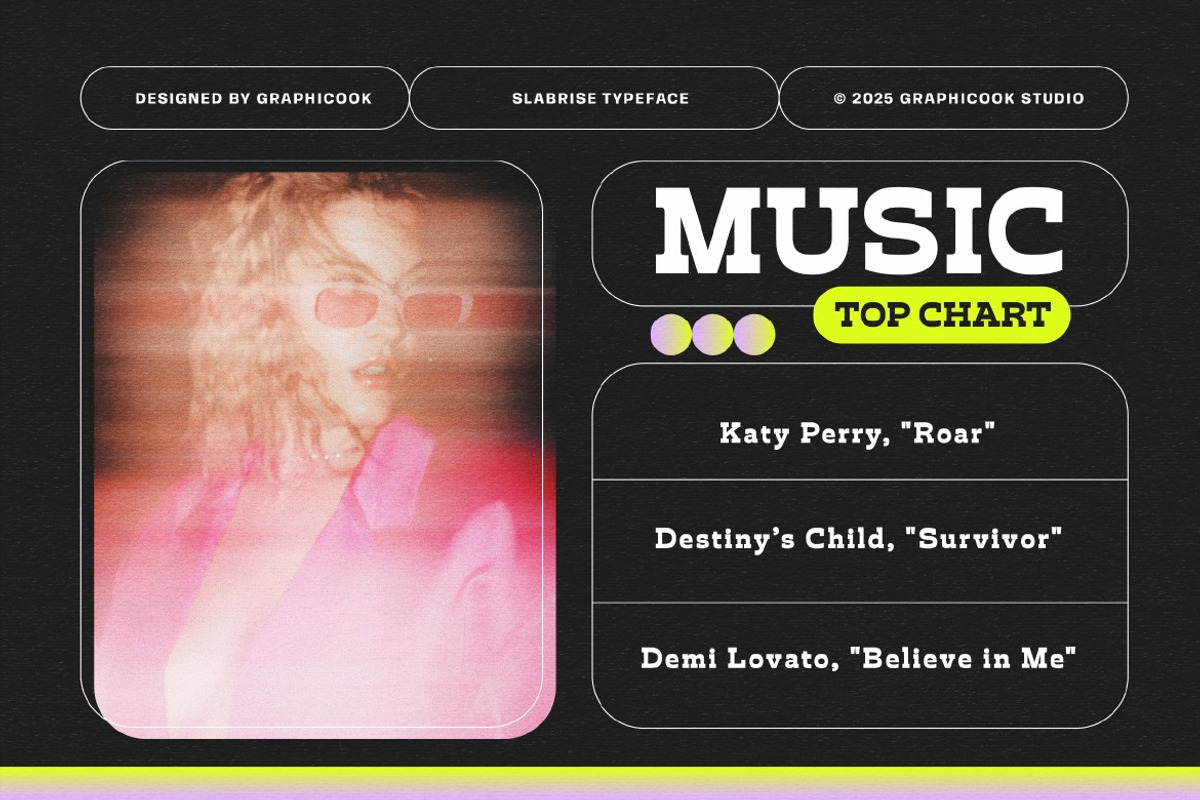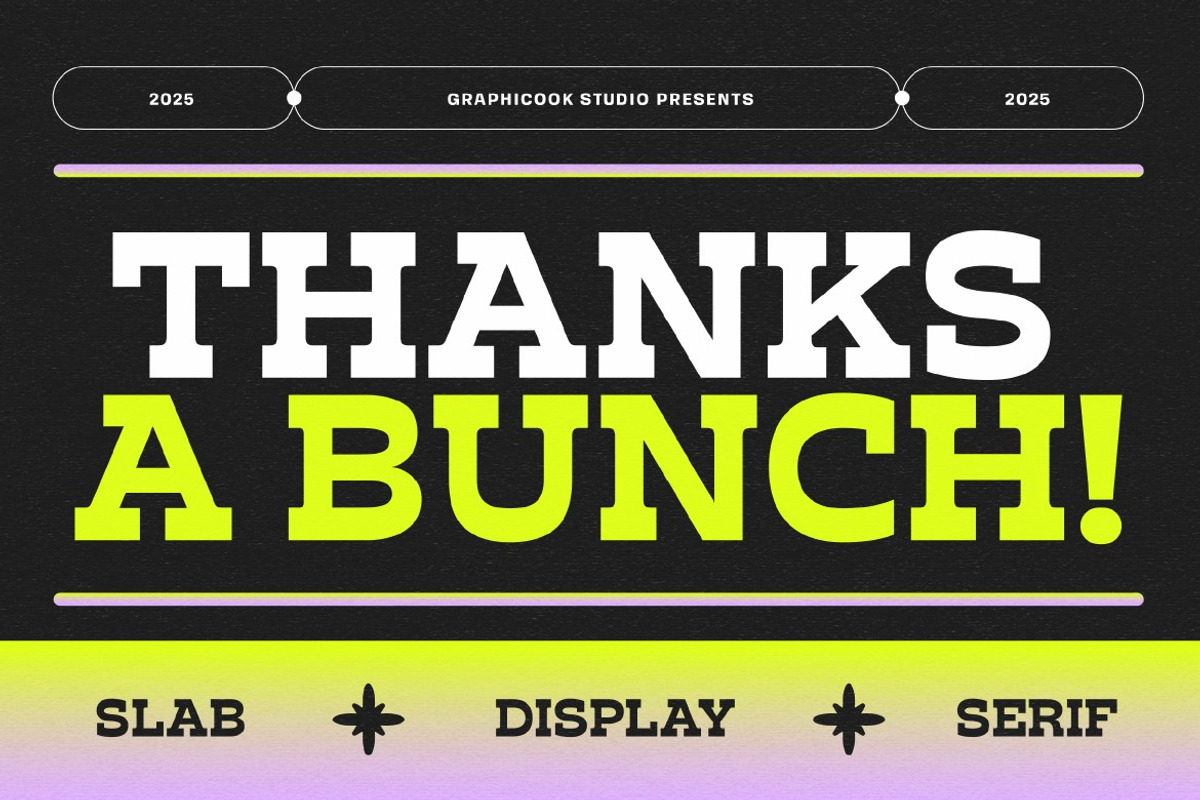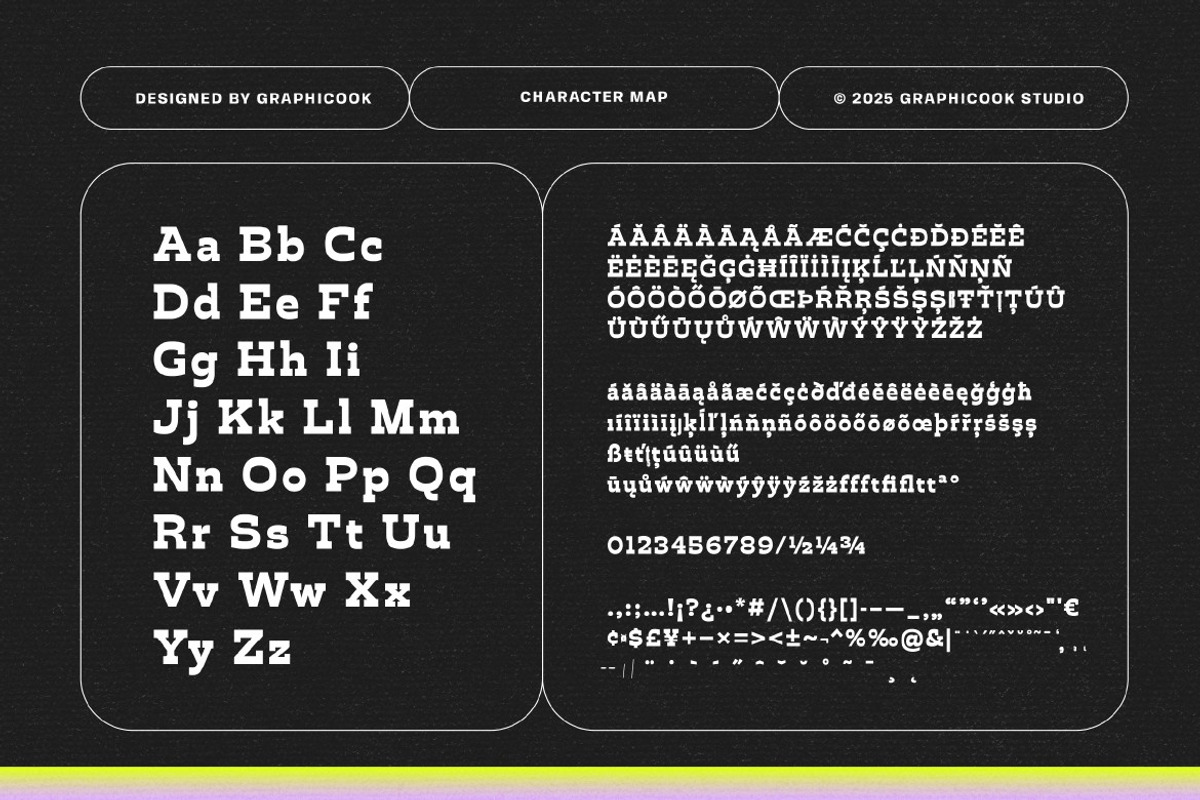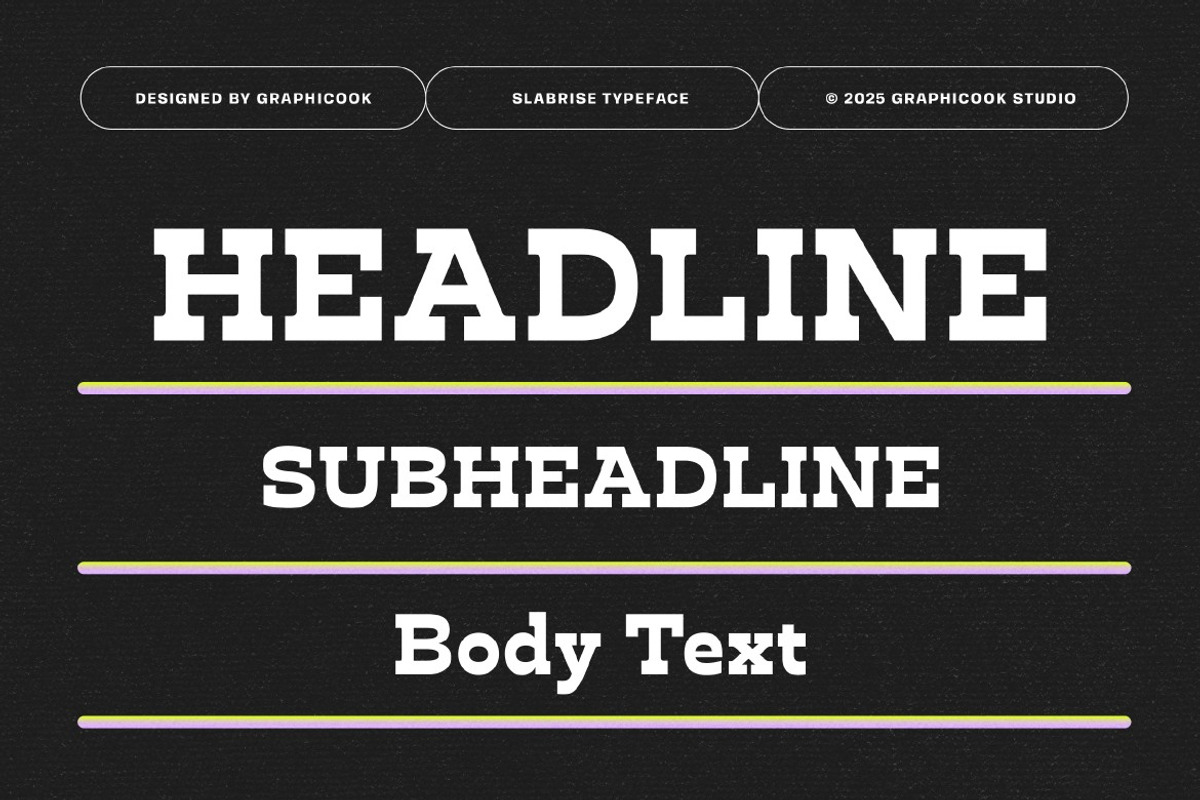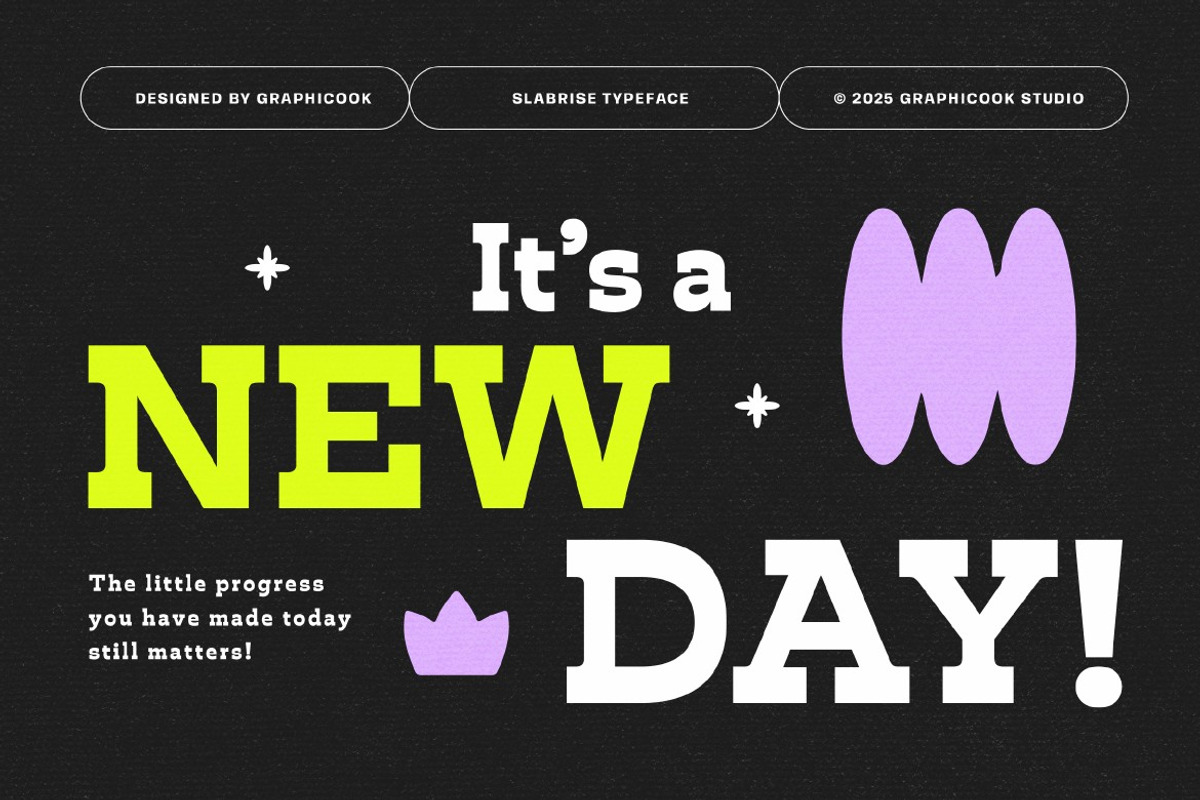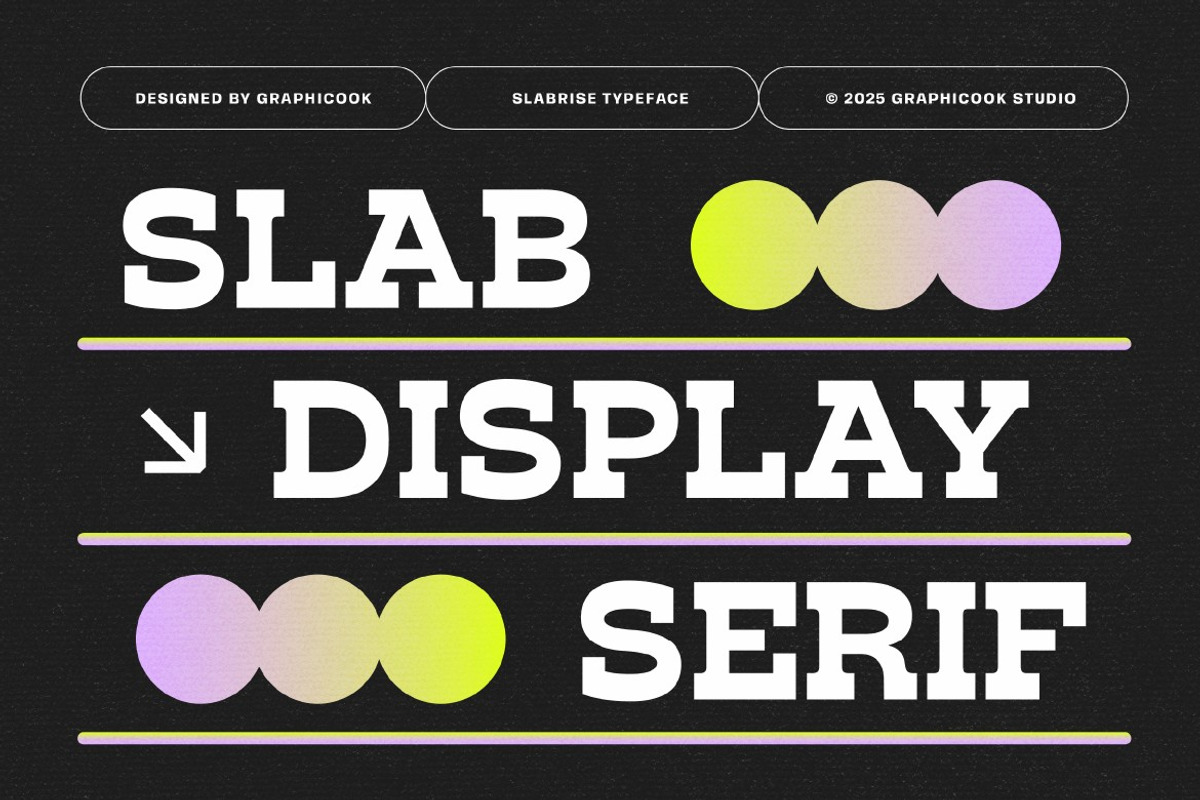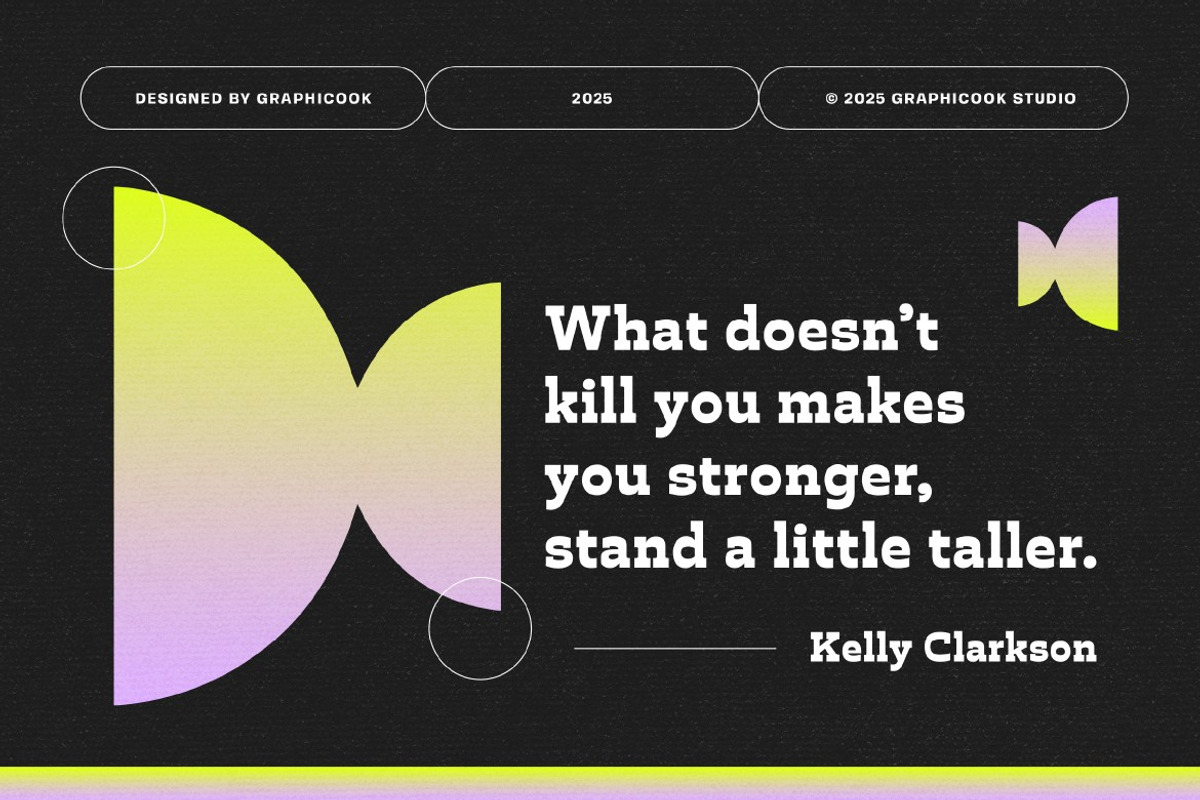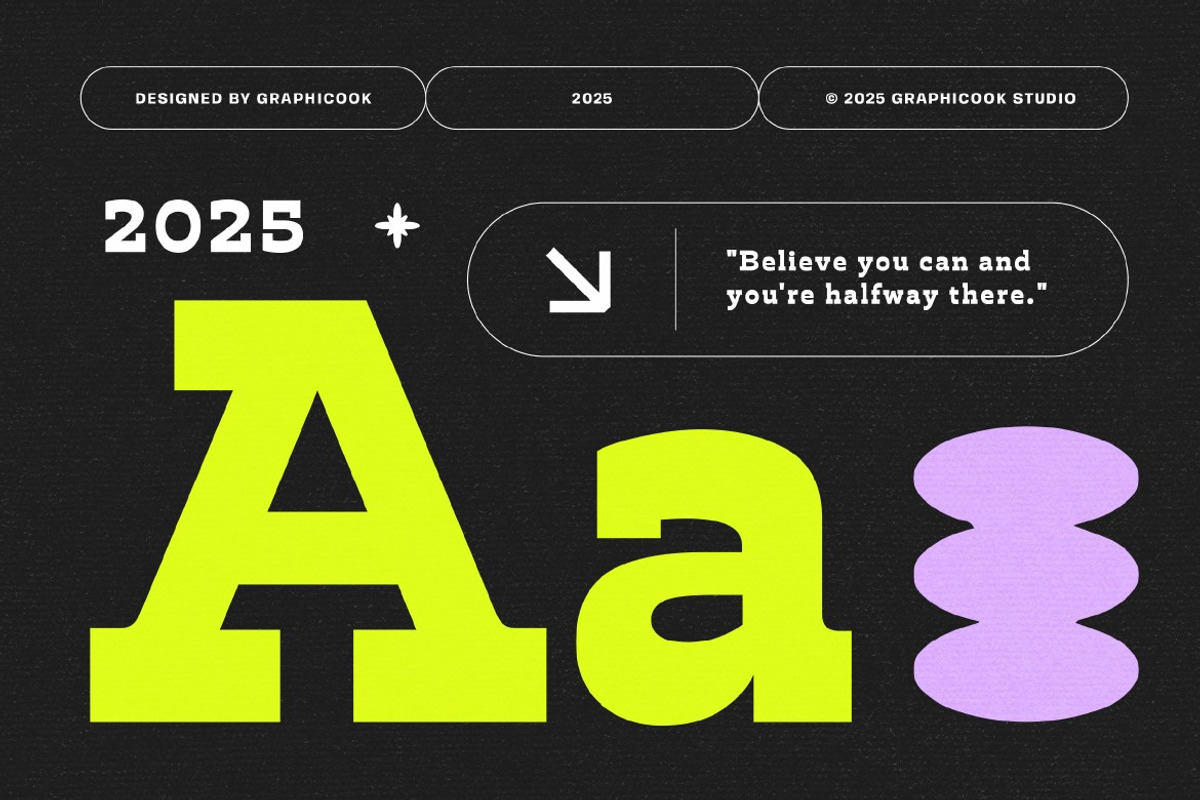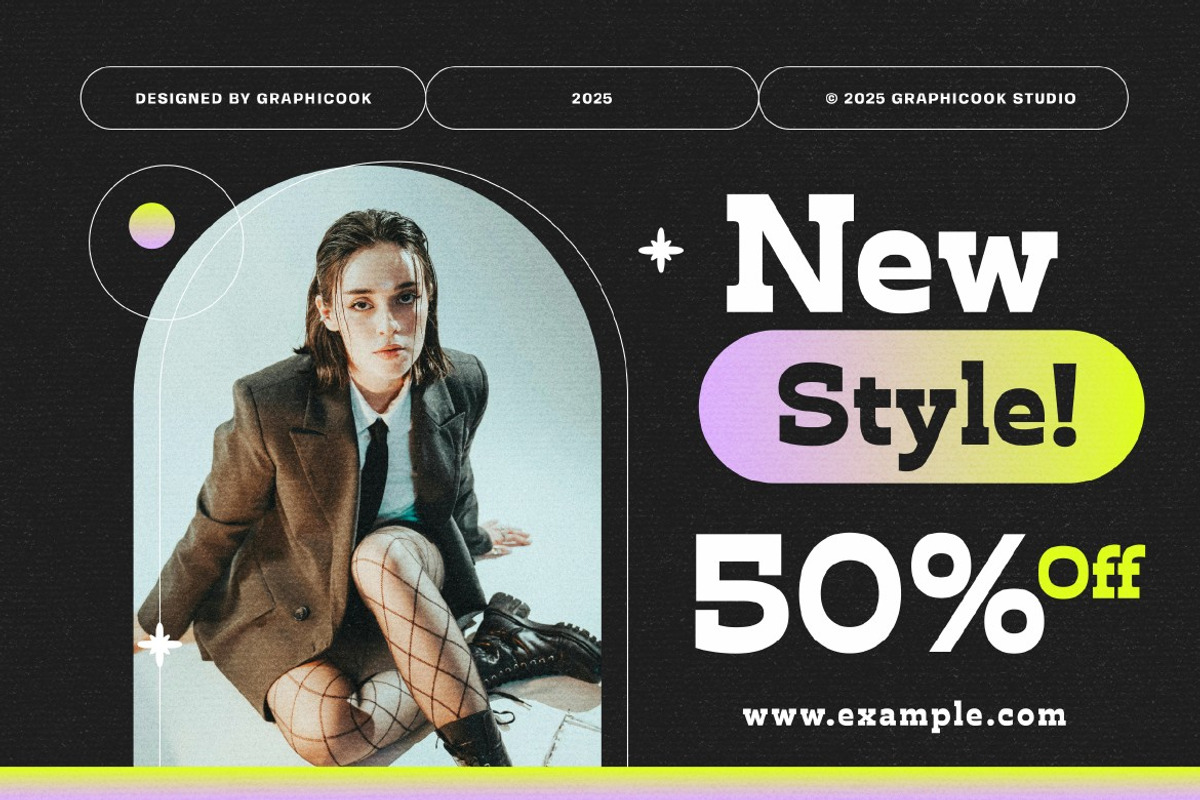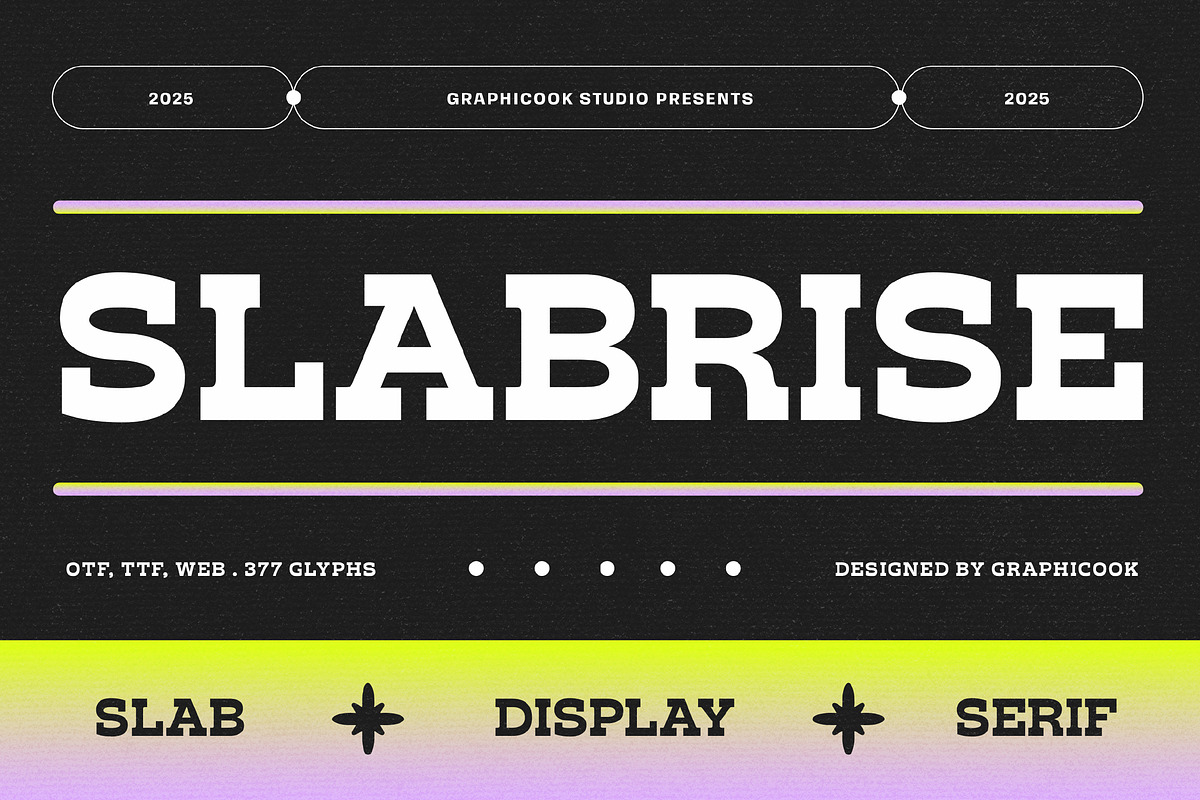
Slabrise
Slabrise is a slab-serif font styled with a modern touch, offering a serious yet visually appealing impression. It’s ideal for headlines, logos, or designs with a retro-modern aesthetic.
Slabrise is perfect for headlines, logotypes, magazines, packaging, quotes, movies, games, cover albums, book covers, and flyers, it's a perfect solution for creating eye-catching designs that stand out in any context.